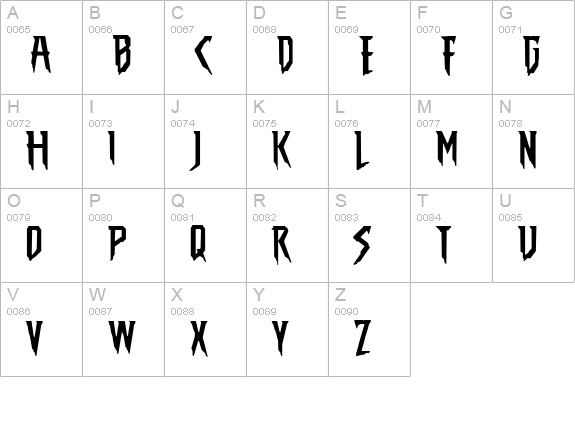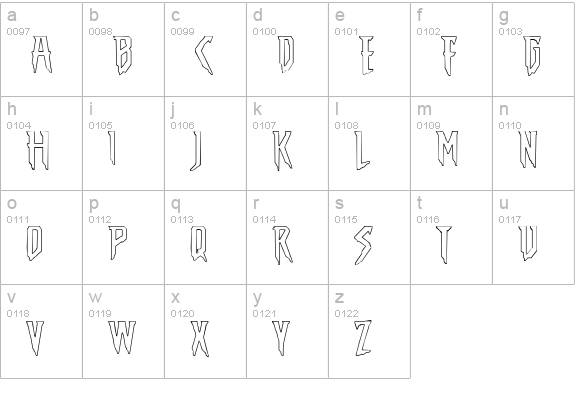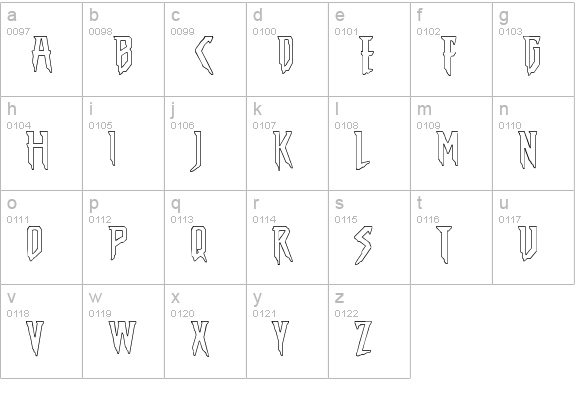
THE AMAZING SPIDER-MAN Font Details
Introducing the extraordinary and captivating THE AMAZING SPIDER-MAN font - a true marvel in the world of typography. This font exudes the essence of the iconic web-slinging superhero, Spider-Man, and encapsulates the thrilling adventures and courageous spirit of the beloved character. THE AMAZING SPIDER-MAN font boasts a dynamic and energetic design, inspired by the action-packed comic book pages. Every letter is meticulously crafted to embody the agility and strength of Spider-Man, while maintaining a sense of boldness and clarity. The sleek curves and sharp edges of each character create a visually striking composition, capturing the essence of Spider-Man's web-slinging prowess. What sets this font apart is not only its exceptional design, but also its availability for everyone, completely free of charge. That's right, THE AMAZING SPIDER-MAN font can be freely downloaded at FontsMarket.com. We believe that creativity should be accessible to all, and by offering this font for free, we aim to empower designers, enthusiasts, and fans alike to bring their own amazing Spider-Man-inspired projects to life. Whether you're designing a poster, comic book cover, logo, or any other creative endeavor, THE AMAZING SPIDER-MAN font will elevate your work to new heights. Its versatility allows for seamless integration into various design styles, while its bold presence ensures that your message will be conveyed with impact and excitement. So, don't miss out on this incredible opportunity to add a touch of superhero magic to your designs. Experience the thrill of THE AMAZING SPIDER-MAN font, freely available for download at FontsMarket.com. Unleash your creativity and let the web-slinger's spirit guide your design journey today!